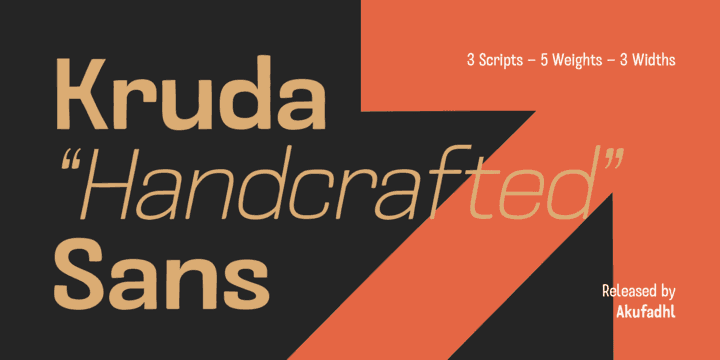
Introducing Kruda Typeface. Kruda is a handmade sans-serif font consisting of 3 widths and 5 weights along with the slanted version. The idea was taken from the old grotesk on a worn out signs and this was just an initial sketch for our typeface Naratif, but it went too far. Thus, we accomplished the language support for LATIN, CYRILLIC and GREEK. He considered the danger and chose to take it anyway.